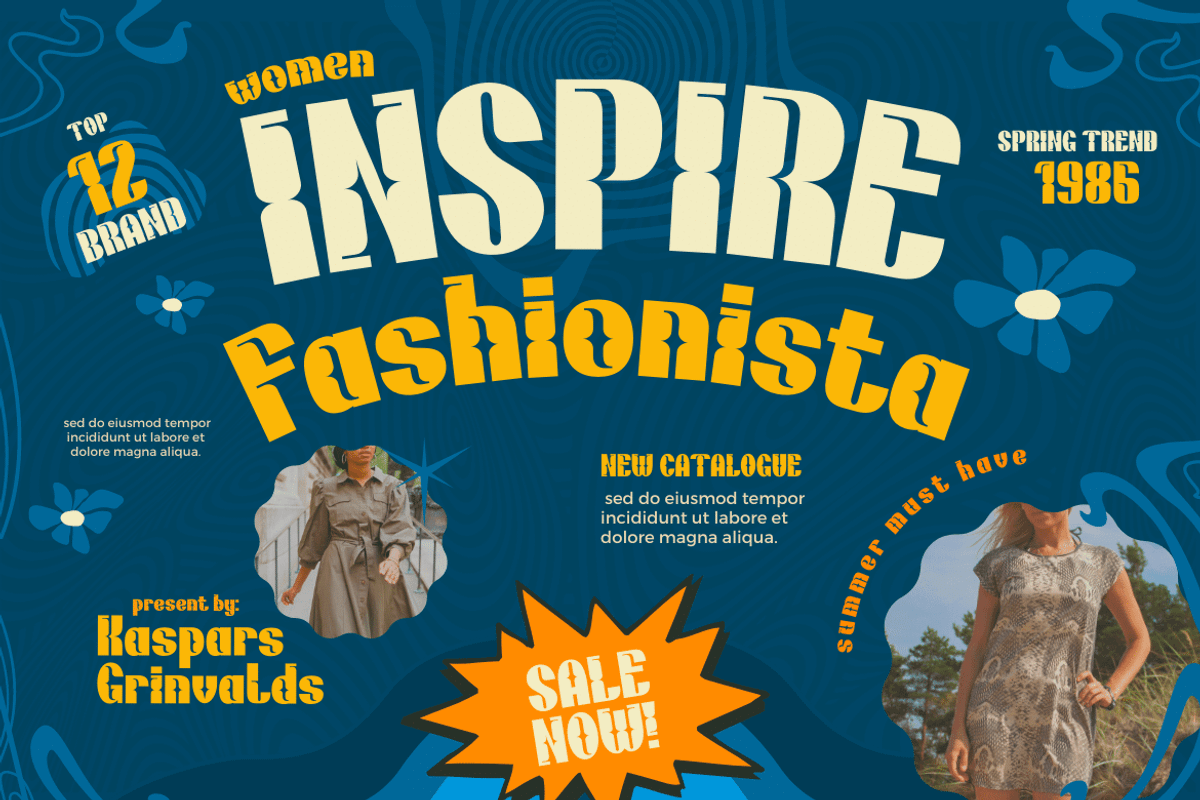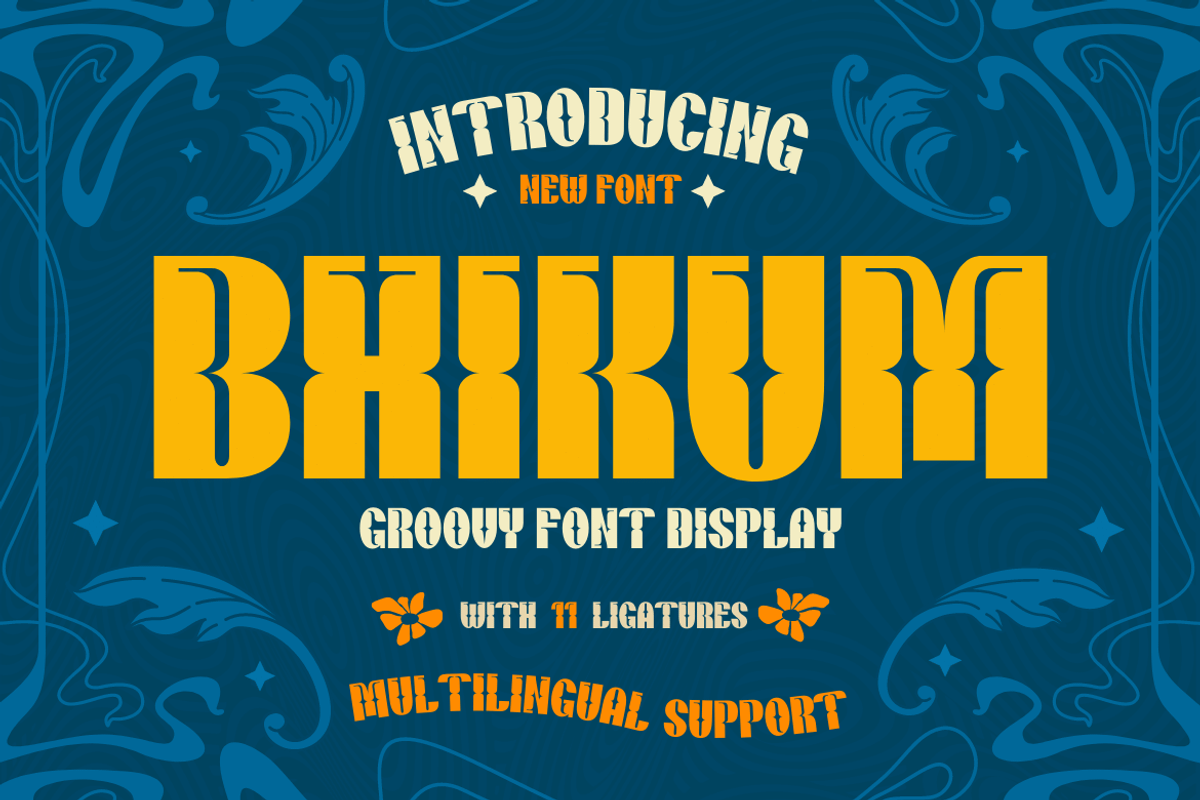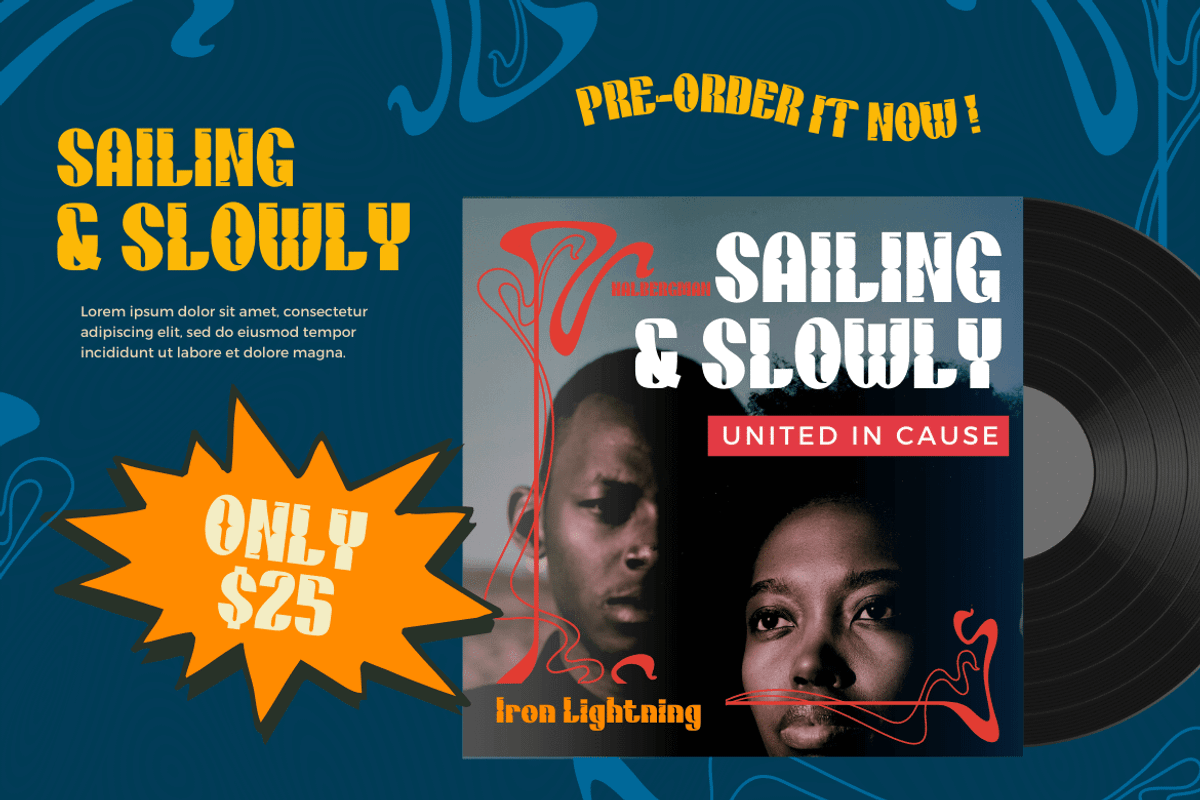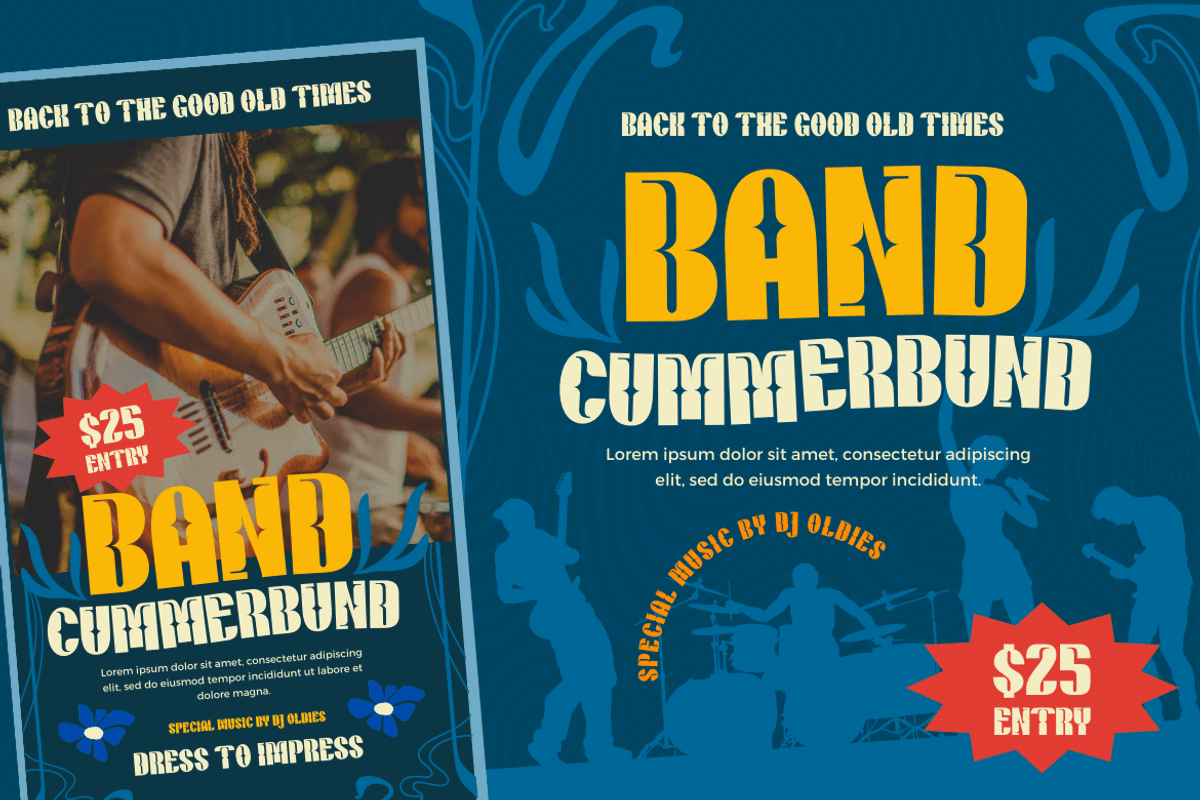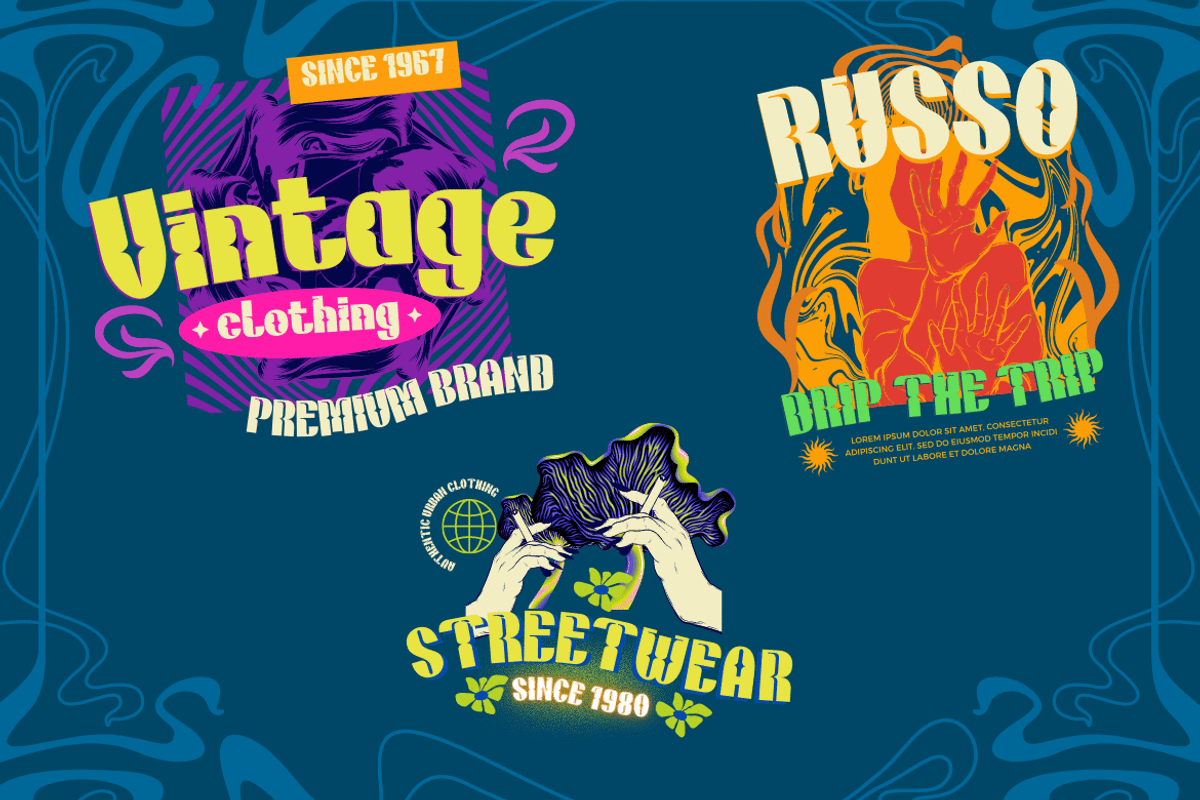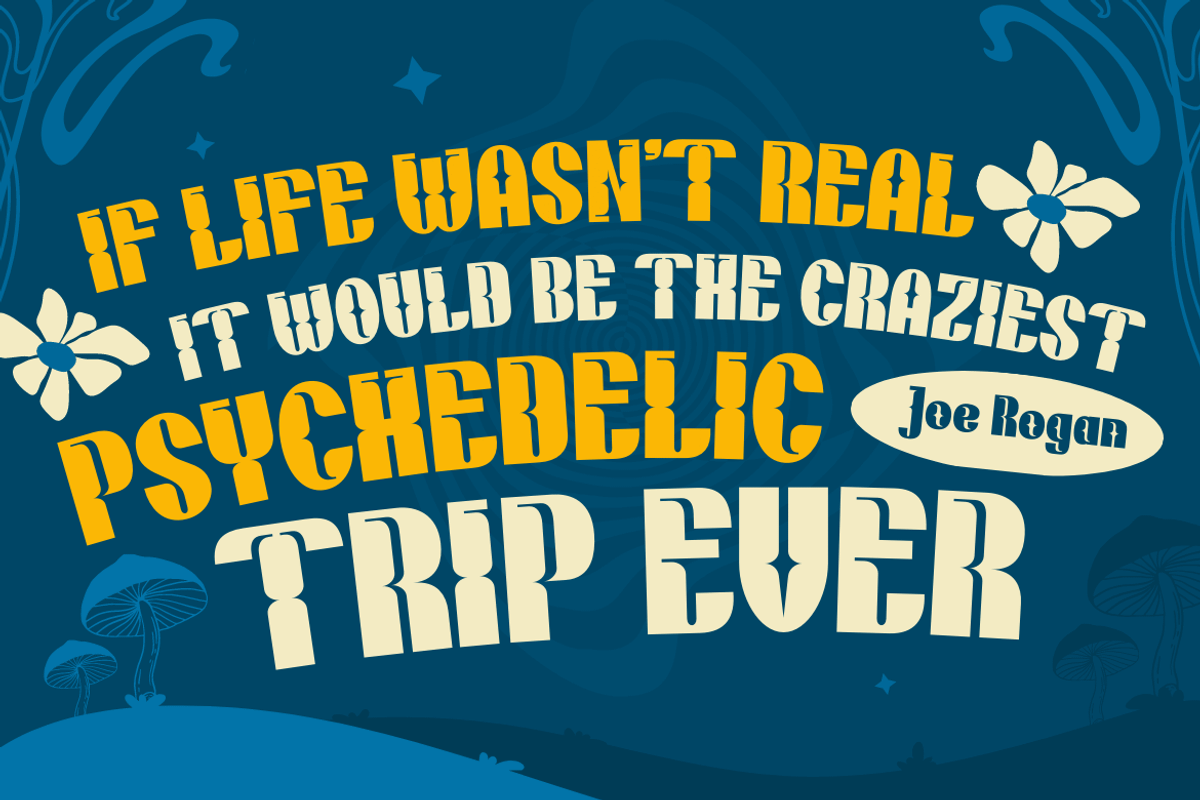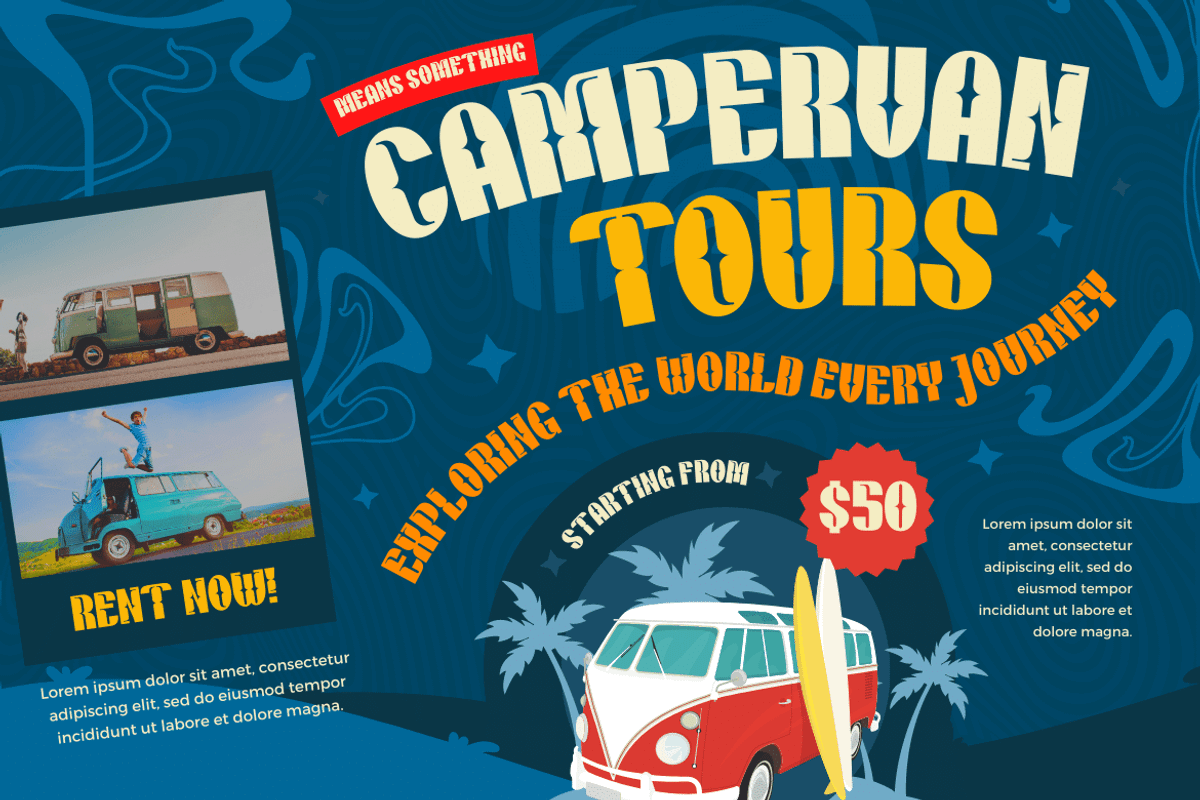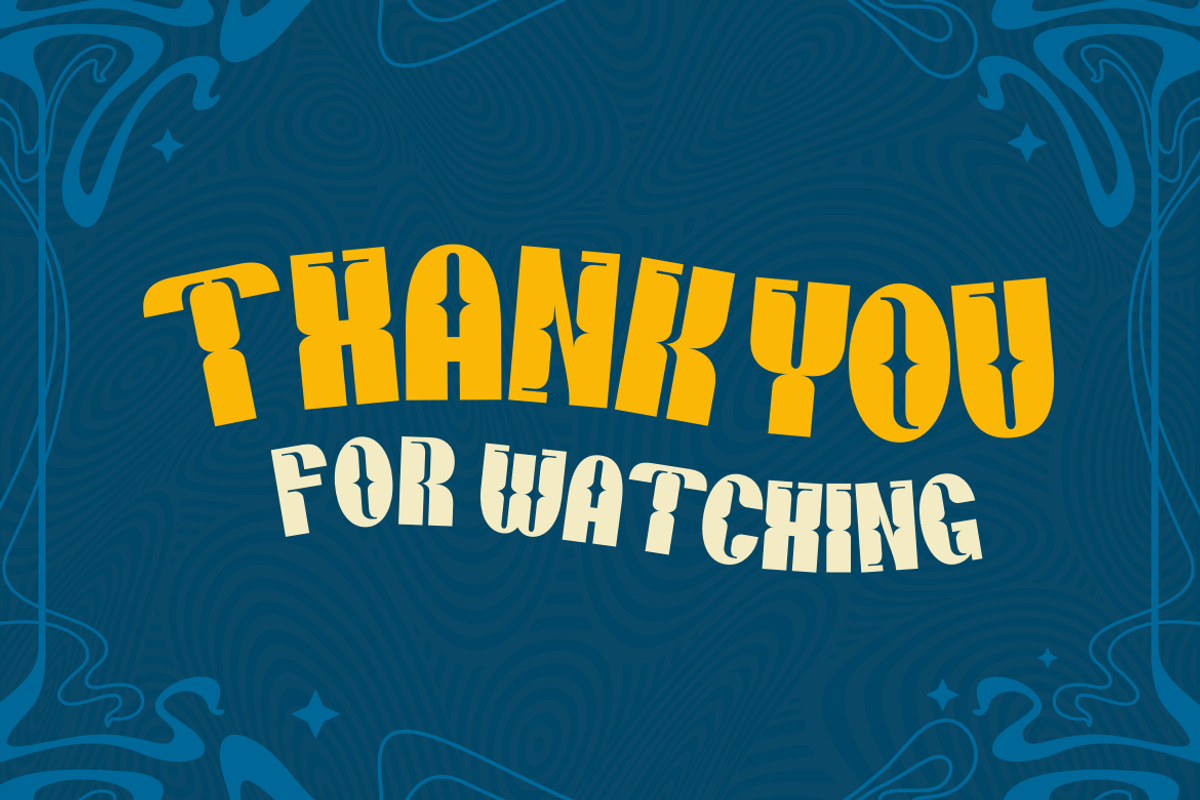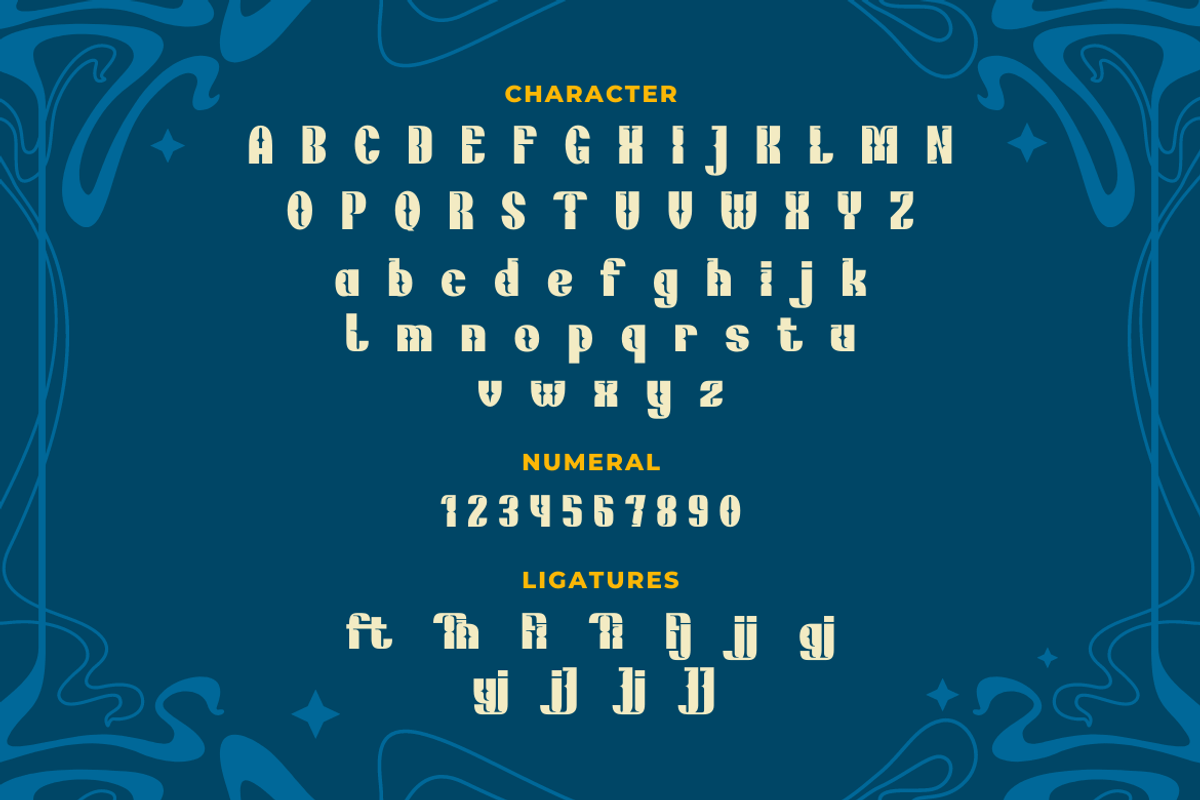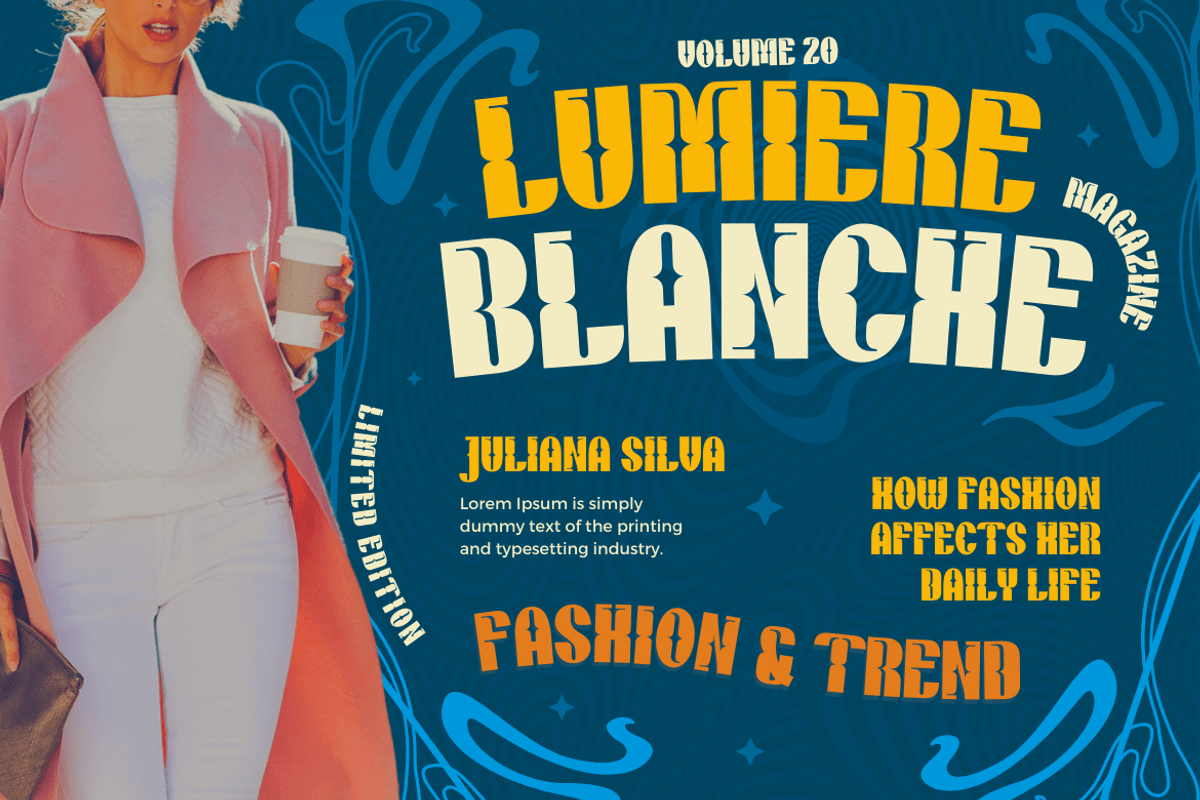
Bhikum | Groovy Retro Font
Bhikum is a modern, stylish and timeless font. This typeface is perfect for a logo, poster, or simple branding project, featuring a bold design and smooth curves. The design trends of the 1970s inspired this Bhikum display font. It has a groovy, classic, and fun feel, but also has aesthetic value for its unique and memorable design. Use this font to add some cool style to your designs!